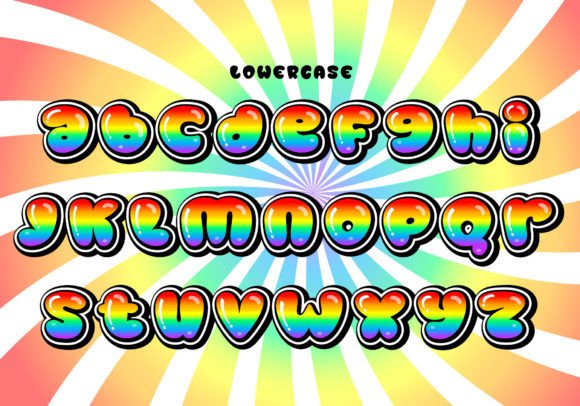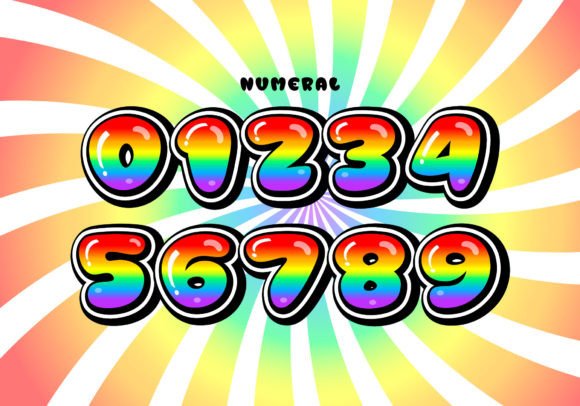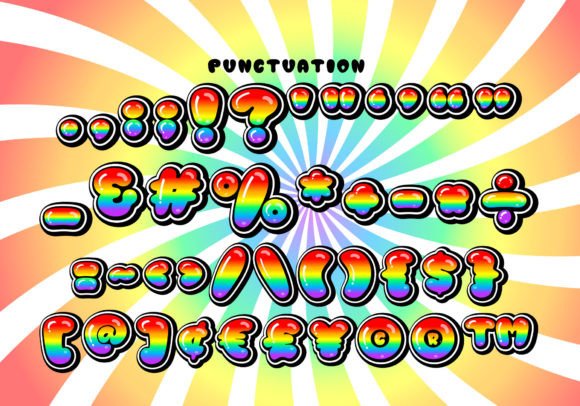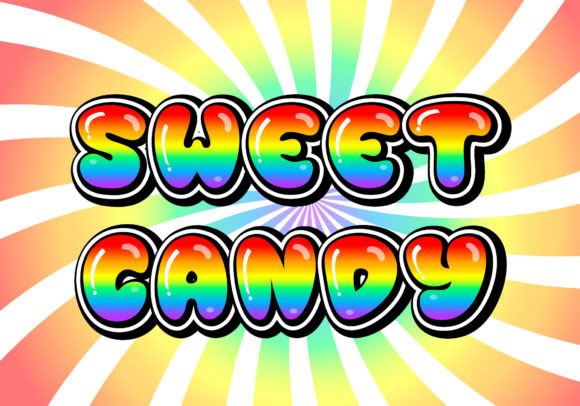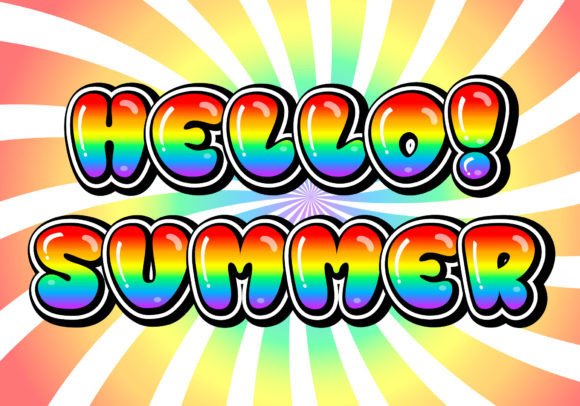
Unleash Your Creativity with the Bubble Rainbow Font
Remember that moment when you stumbled upon the perfect font that made your design come alive? For many designers, it’s a moment of pure joy and excitement. The thrill of discovering a font that not only captures the essence of your brand but also elevates your design to the next level is what makes the creative process so rewarding.
Meet the Bubble Rainbow Font, a vibrant and playful typography that’s designed to make a statement. This colorful font is perfect for logos, packaging, and designs that require a touch of excitement and personality. With its bold and chunky shapes, the Bubble Rainbow Font is a valuable addition to any designer’s toolkit, offering endless possibilities for creative expression.
Bubble Rainbow Font Key Features
- Unique Characteristics: The Bubble Rainbow Font features a unique, hand-drawn design with a playful, whimsical feel. Each letter is carefully crafted to create a sense of movement and energy.
- Font Style: The Bubble Rainbow Font comes in a variety of styles, including regular, bold, italic, and bold-italic, allowing designers to mix and match to create visually interesting combinations.
Bubble Rainbow Font Review
As a designer, I’ve had the chance to work with the Bubble Rainbow Font and here’s my honest review.
- The font’s whimsical and playful feel is perfect for creative projects, such as children’s books or advertising campaigns.
- The bubble-like design elements add a fun and dynamic touch to text.
- The font is highly customizable, allowing for easy color changes and size adjustments.
- The font may not be suitable for formal or professional projects, as its playful nature may come across as immature.
- The design elements may not be as versatile as some users might hope, as they are specifically tailored to the bubble design.
- The font may not be as readable in smaller sizes or at a distance, due to its unique design.
Overall, I think the Bubble Rainbow Font is a great choice for designers looking for a fun and creative font. While it may have some limitations, its playful feel and high customizability make it a valuable addition to any design toolbox.
The Bubble Rainbow Font is perfect for:
- Creative and playful designs.
- Children’s books and educational materials.
- Wedding invitations and party decorations.
- Any project where a whimsical and eye-catching font is desired.
Q: Is the Bubble Rainbow Font available in different font sizes and styles?
Yes, the Bubble Rainbow Font is available in multiple font sizes and styles, including bold, italic, and regular weights. The font also includes a range of language support, including Latin, Cyrillic, and Greek alphabets. However, please note that the font may not be available in all sizes or styles for all software or devices.